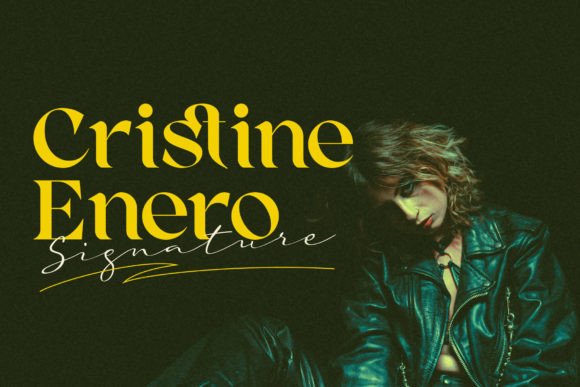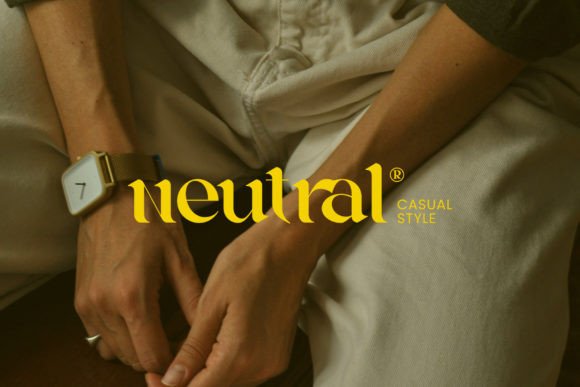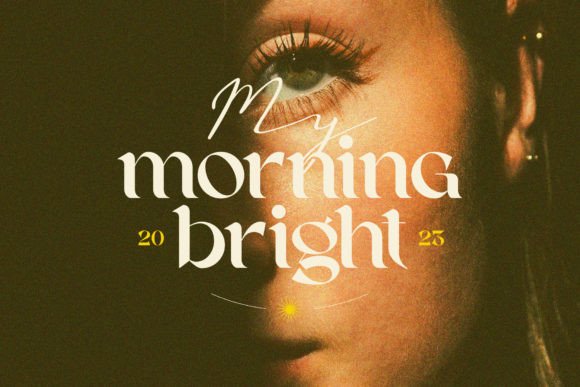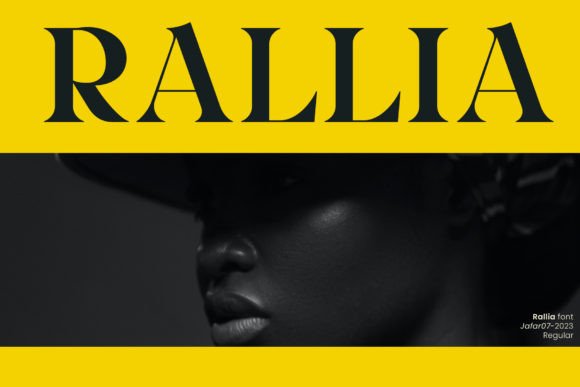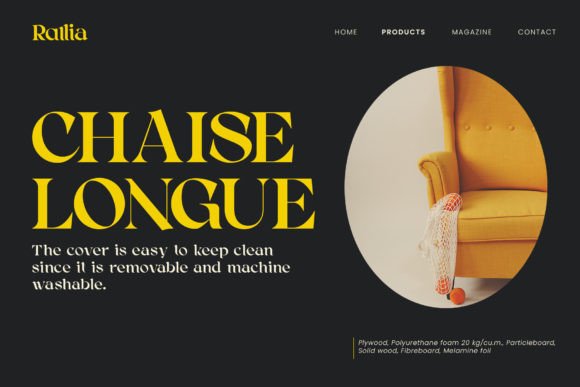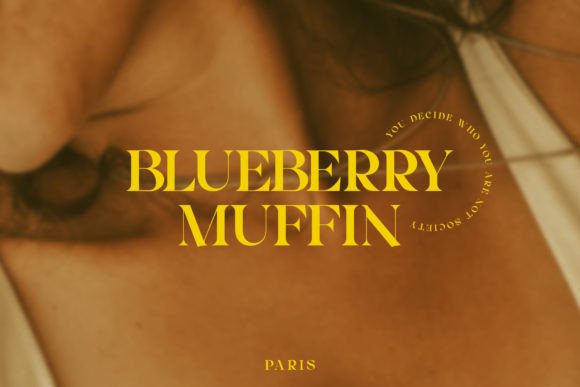
Introduction to Rallia Font Font
Fonts play a crucial role in design, and the Rallia Font font is a typeface that brings both character and versatility to any project. Whether you’re working on a branding project, a website, or a print design, the Rallia Font font offers a unique style that can elevate your work.
| 📌 Font Name | Rallia Font |
| 👤 Author | roomspace |
Rallia is a modern classic serif style font with unique curves that combine straight, rounded, and sharp lines.
Inspired by elegant and temporary characters This font is suitable for use in many forms of design and pairs beautifully with sans-serif or light script fonts.
Key Features of Rallia Font Font
Why Choose Rallia Font Font?
The Rallia Font font is more than just a typeface – it’s a design tool that helps you communicate your message with style and clarity. Its unique character set and versatile design make it suitable for a wide range of applications, from elegant invitations to bold headlines.
With its carefully crafted letterforms and balanced proportions, the Rallia Font font ensures readability and visual appeal across all mediums.
What makes Rallia Font font special?
The Rallia Font font stands out with its unique design, exceptional readability, and versatility across various design applications.